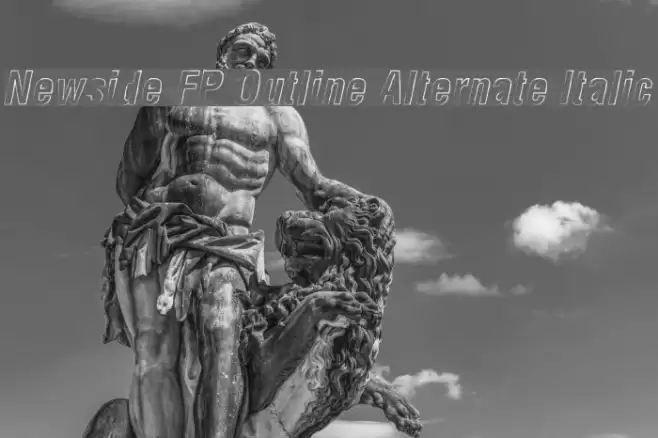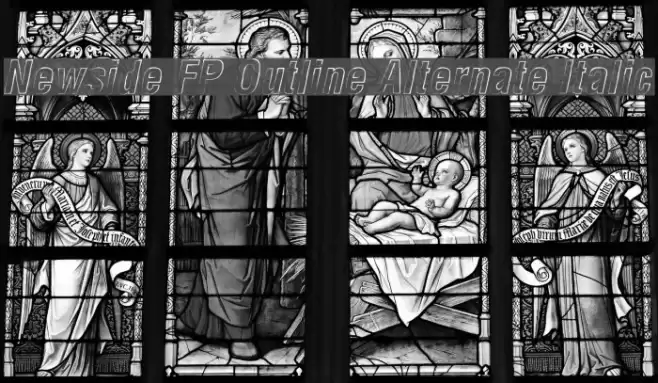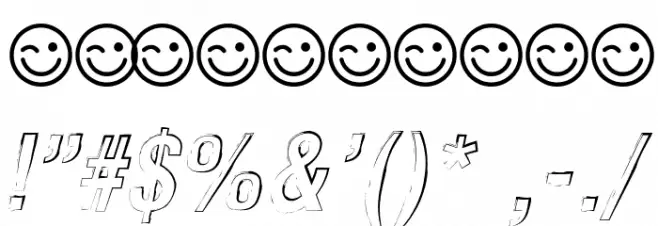
Newside FP Outline Alternate Italic Font
Newside FP Outline Alternate Italic Description
This font features a modern and stylish outline design with a distinct italic slant, giving it a dynamic and forward-leaning appearance. The uppercase and lowercase letters are consistent in their outline style, providing a cohesive look across the alphabet. The numerals and special characters maintain this aesthetic, ensuring versatility in various applications. The font's outline nature adds a layer of sophistication and creativity, making it suitable for projects that require a contemporary and artistic touch. Its clean lines and structured form make it easy to read while still offering a unique visual appeal.
A modern, italic outline font with a dynamic and stylish appearance from Uncategorized fonts.